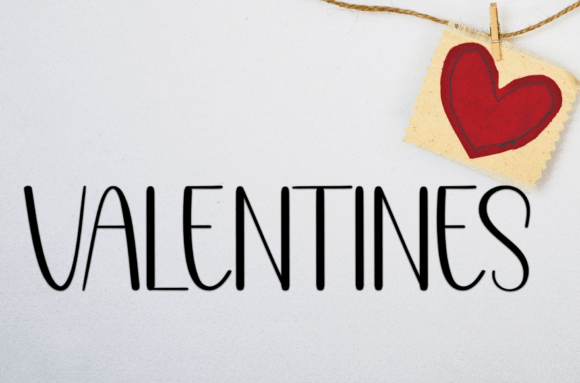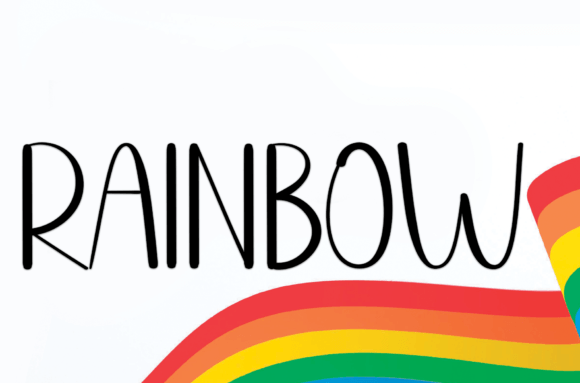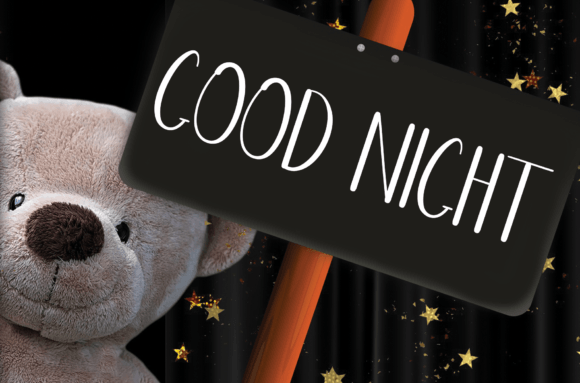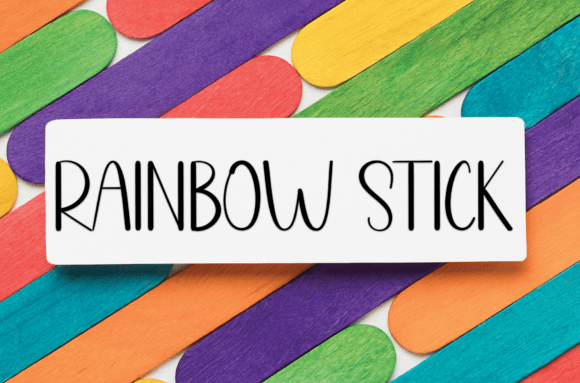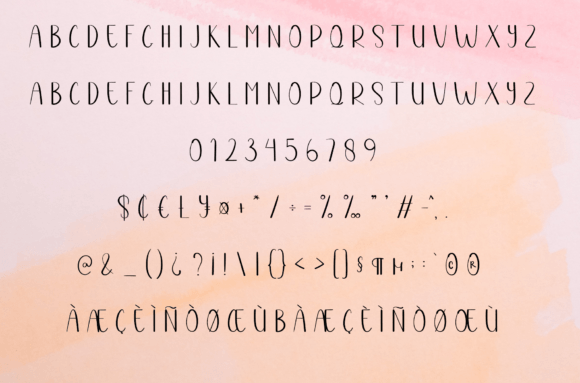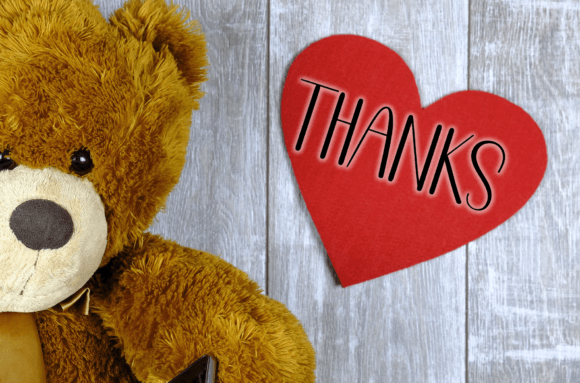
Introduction to Singing Clown Font
Singing Clown is a sweet and friendly handwritten font.
Fun and relaxed, this font is ideal for writing wedding invitations, cards, or any other design that might need a joyful touch .
Key Features of Singing Clown Font
Why Choose Singing Clown Font?